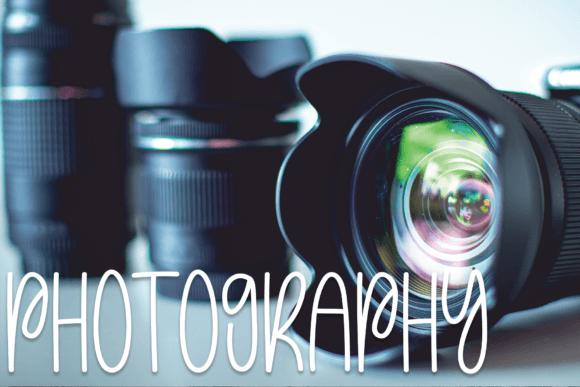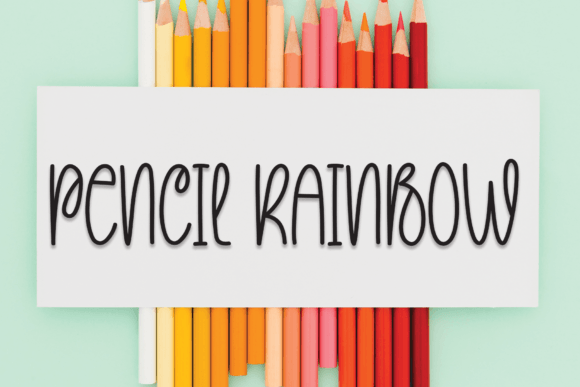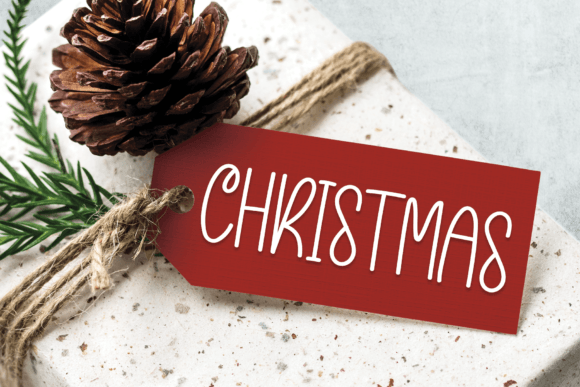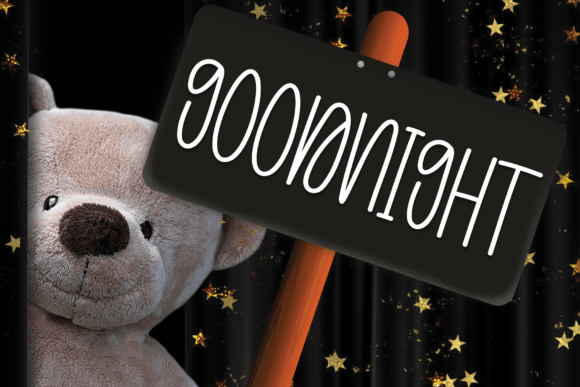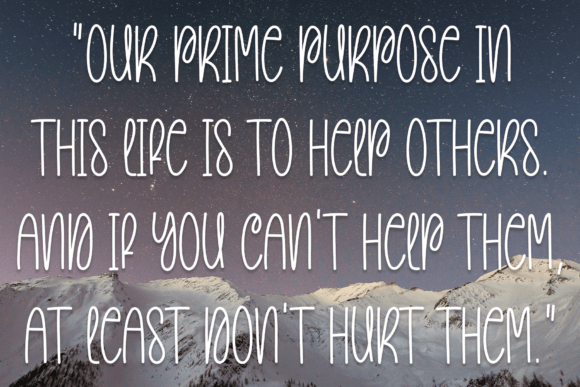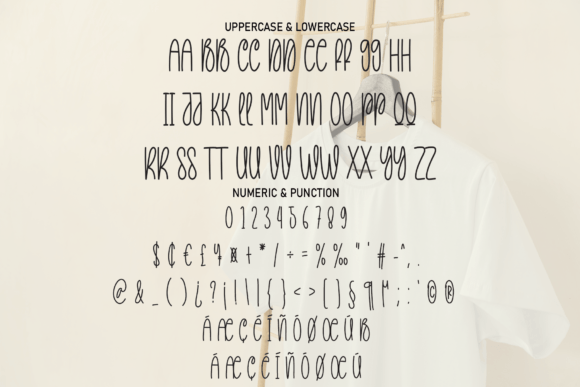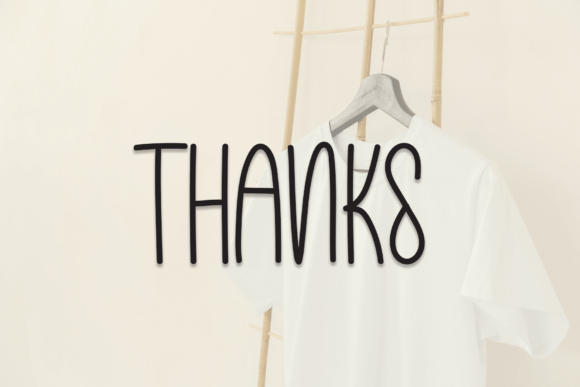
“Tshirt” is a delightful and laid-back handwritten font that radiates a sense of fun and informality. Whether you’re applying it to crafting, digital design projects, presentations, or crafting personalized greeting cards, it’s the ideal choice to add a touch of playfulness to your creative endeavors.
The “Tshirt” font has been crafted to capture a carefree and relaxed aesthetic, making it a versatile option for a wide array of applications. Its informal style lends itself well to various creative projects, allowing you to infuse a sense of light-heartedness and character into your work.
For crafters, “Tshirt” can be an excellent selection when adding text to handmade items like custom t-shirts, tote bags, or personalized gifts. Its playful appearance can make your creations feel more unique and engaging.
In the realm of digital design, this font can be utilized to introduce a touch of informality and friendliness to your graphics. Whether you’re designing social media posts, blog graphics, or digital illustrations, its relaxed vibe can make your content feel more approachable and relatable.
Presentations can also benefit from “Tshirt,” particularly when you aim to diverge from the typical formal fonts and create a more engaging and memorable visual experience. It can add a dash of creativity and charm to your slides, helping your audience connect with your message.
When crafting greeting cards or invitations, “Tshirt” imparts a sense of joy and informality to your words, making your cards feel more heartfelt and personal. It’s an excellent choice for special occasions and events where you want to convey a sense of warmth and sincerity.
In essence, “Tshirt” is a playful handwritten font that effortlessly combines fun and informality. Its adaptability makes it suitable for a multitude of creative purposes, from crafting to digital design, presentations, and greeting card making. With “Tshirt,” you can inject a dose of whimsy into your projects, making them more engaging and enjoyable for your audience.